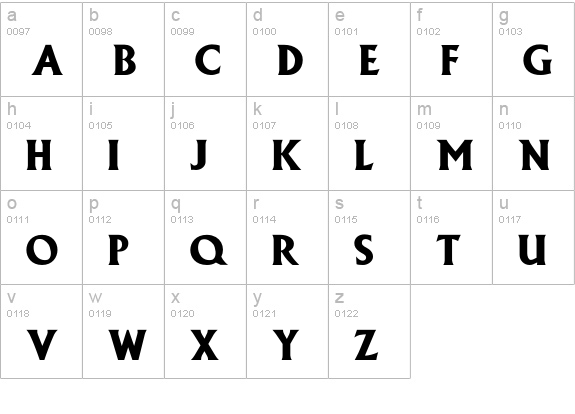
AlexanderBlack font is a stunning and unique typeface that exudes elegance and sophistication. With its bold and modern letterforms, this font is perfect for creating eye-catching designs that demand attention. The sleek curves and sharp angles of AlexanderBlack make it a versatile choice for a wide range of projects, from branding to editorial design. The best part about AlexanderBlack font is that it is completely free to download at FontsMarket.com. This means that you can easily access this premium font without any cost, making it a valuable addition to your font library. Whether you're a professional designer or just looking to add a touch of style to your personal projects, AlexanderBlack is sure to impress with its timeless appeal and contemporary flair.